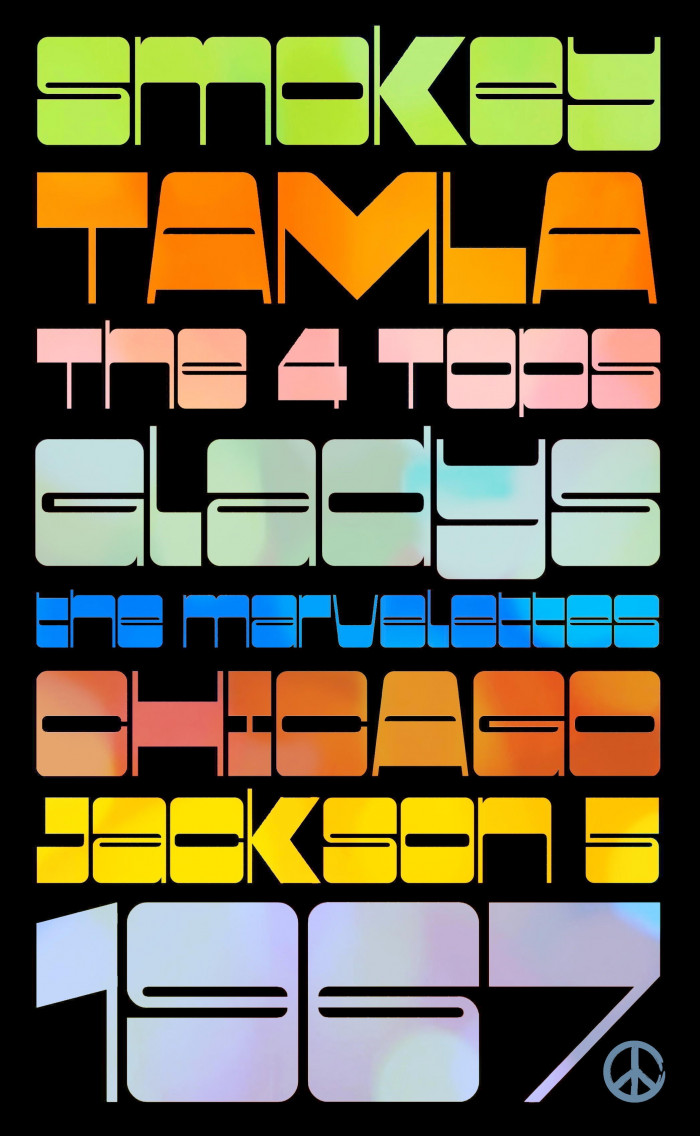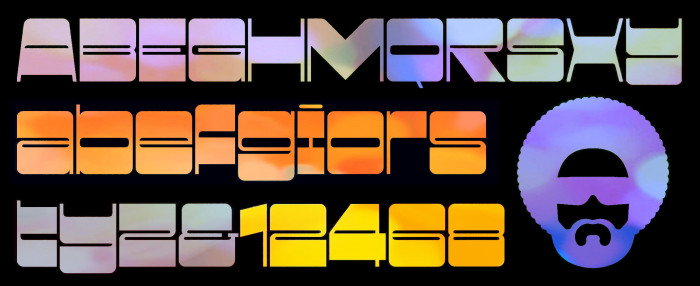
Wonderful reverse contrast look!
Dope Disco-Afro G! :P
You nailed that cool 70s blocky look! Also, I am only now noticing that you've made like half the fonts on this site! Lol